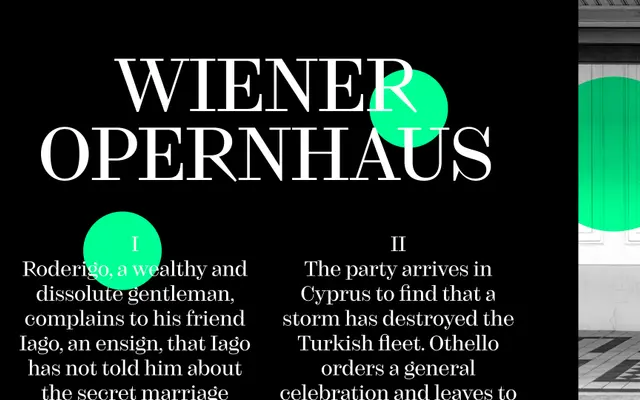
Kreol Standard
Studio Rene Bieder · Rene Bieder
A geometric sans with seven weights and matching italics, sitting within a three-subfamily system that spans display, standard and text optical roles.
Kreol Standard occupies the middle register of the Kreol family, positioned between the display and text cuts. Fourteen styles run from Thin to ExtraBold with italics throughout, and a generous set of OpenType features includes small capitals, oldstyle figures, case-sensitive forms and multiple alternates for characters such as 'a', 'g', 'J', 'Q' and 'R'. The alternate glyph set gives designers control over tone, shifting the face between a strict geometric and a slightly warmer register.
The upright, clean construction and range of weights from Thin to ExtraBold with alternates for single-storey 'a' and 'g' point to a geometric sans tradition with some humanist detailing.